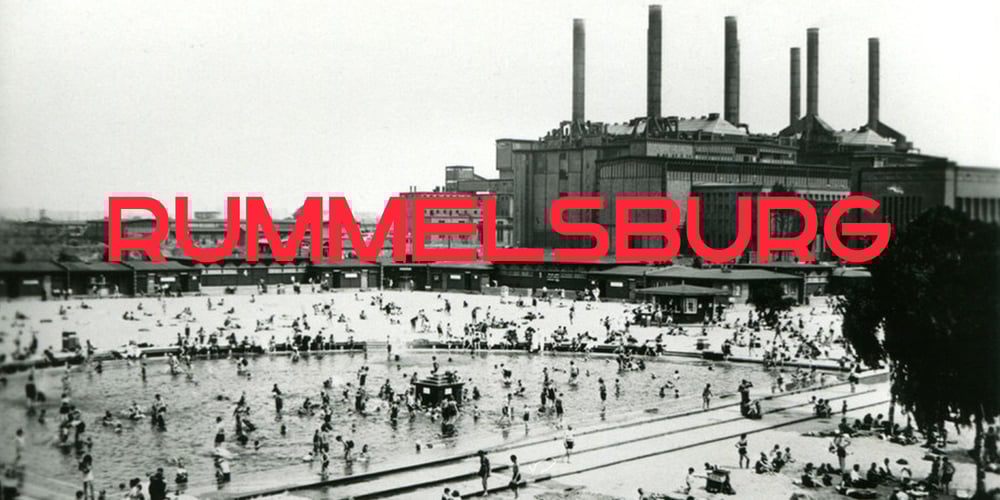
Rummelsburg Font Family was designed by Felix Schwarze, Christian Thiele and published by Knorke. Rummelsburg contains 2 styles and family package options. Handcrafted in East Berlin, Rummelsburg is inspired by old metal signs from the GDR, which are still visible around here. It comes in three weights and is mainly build for nice headlines, logos and typographic designs.